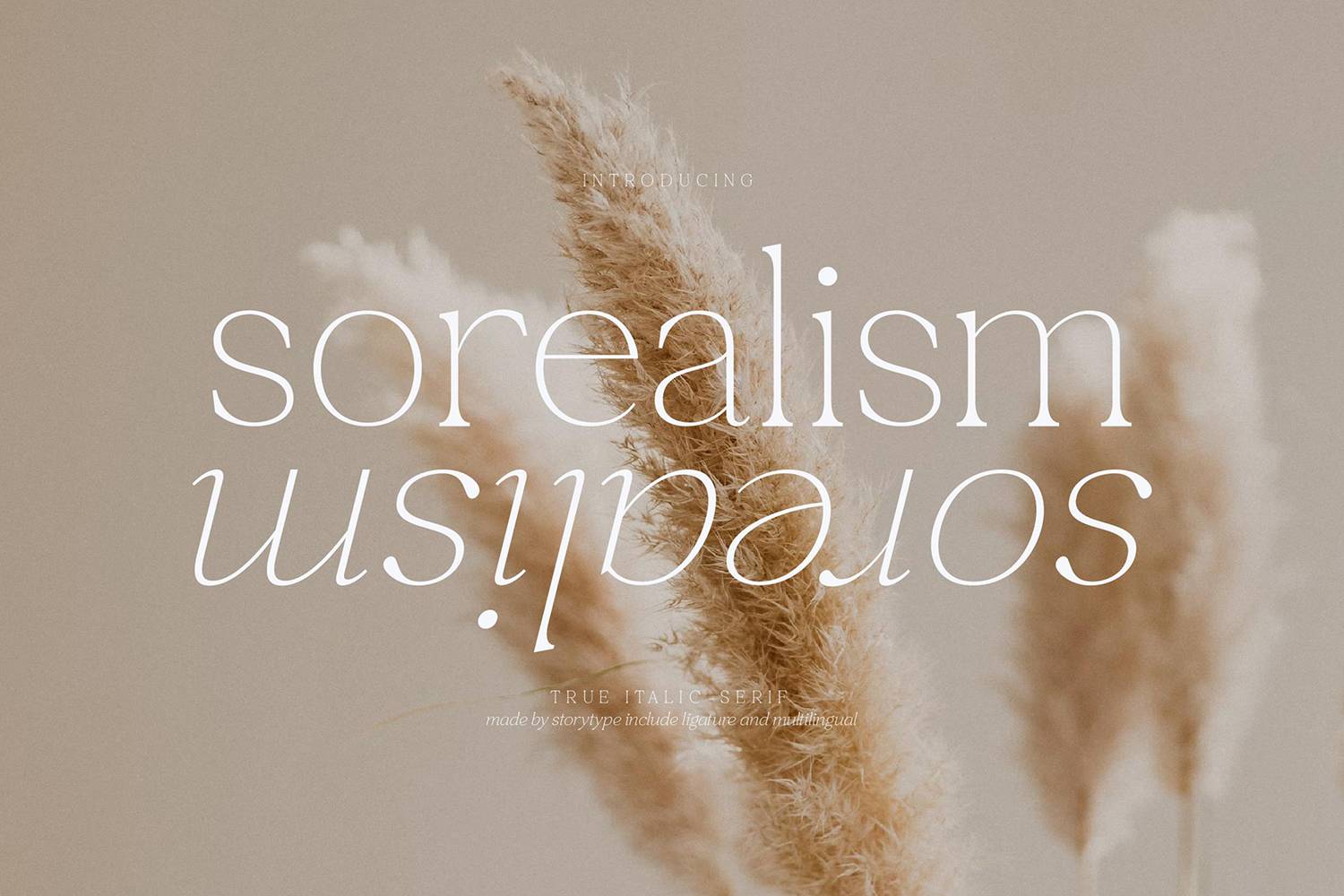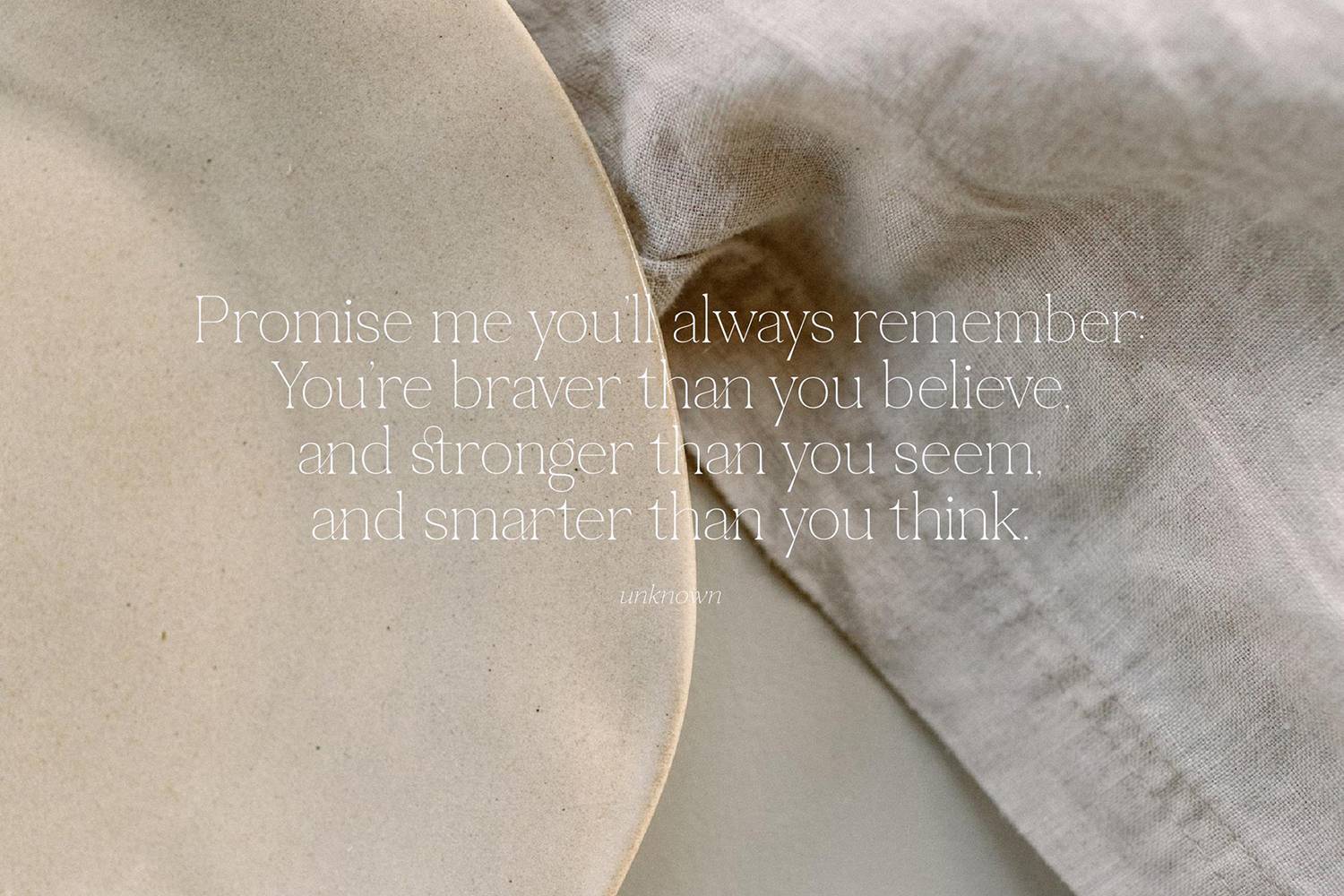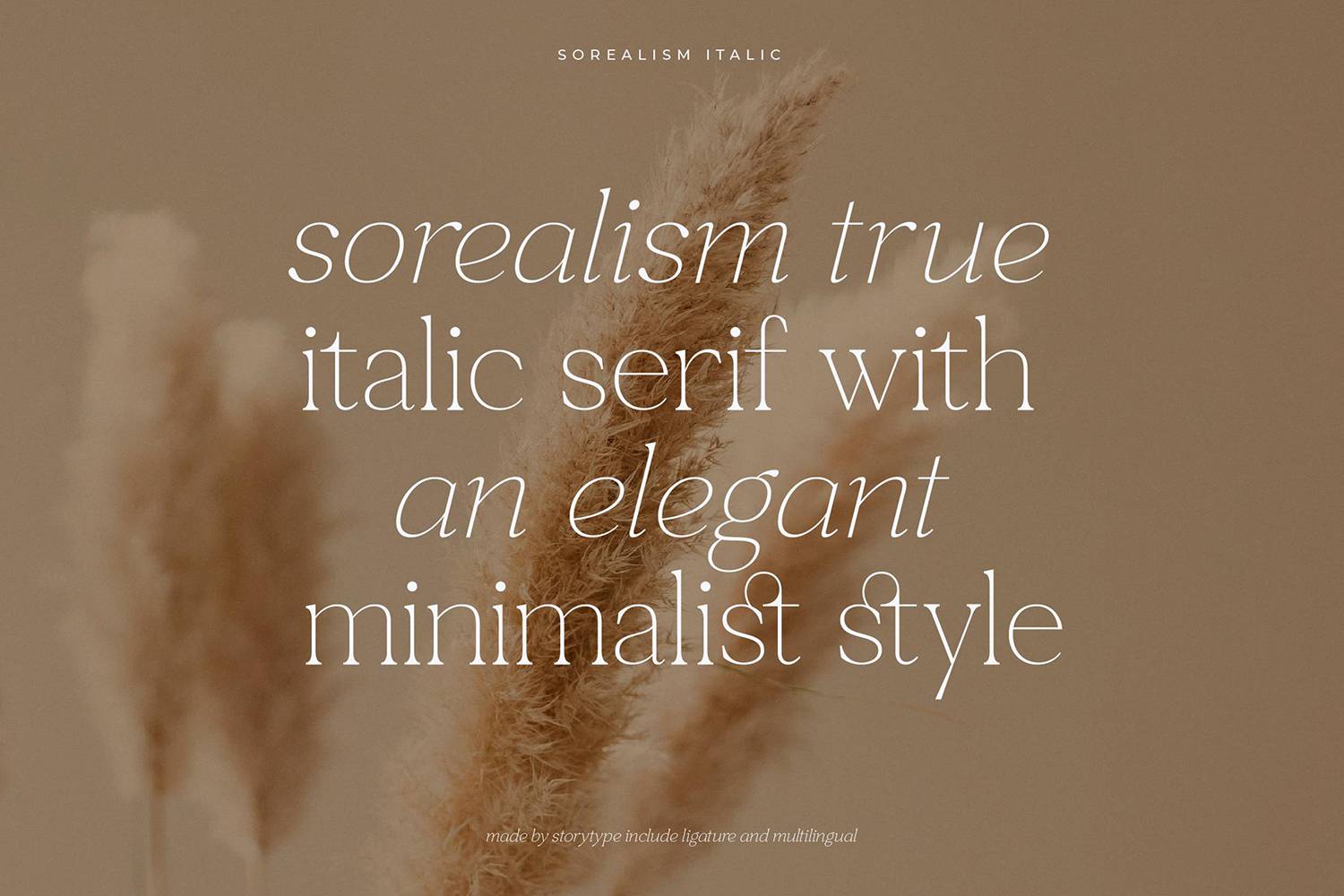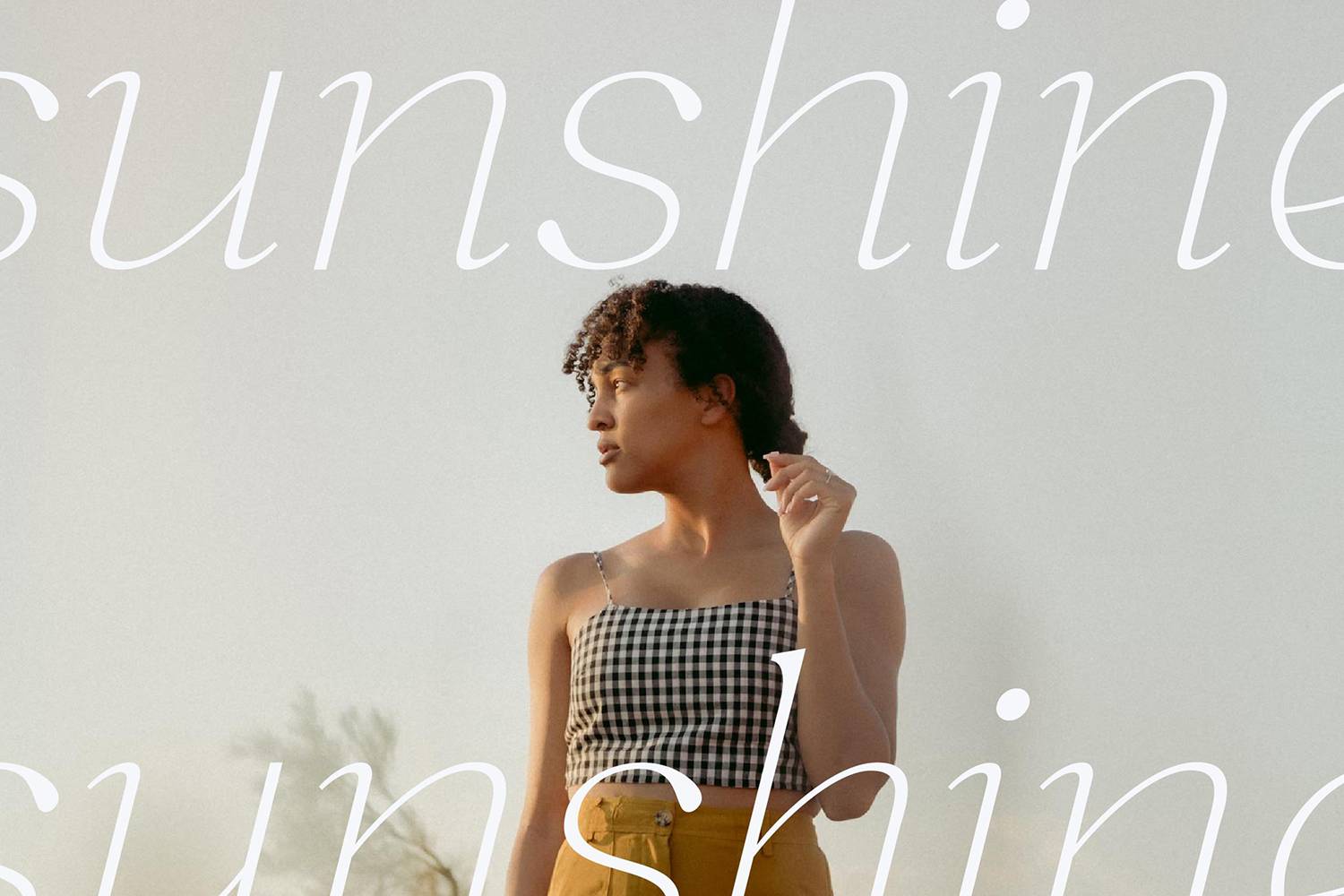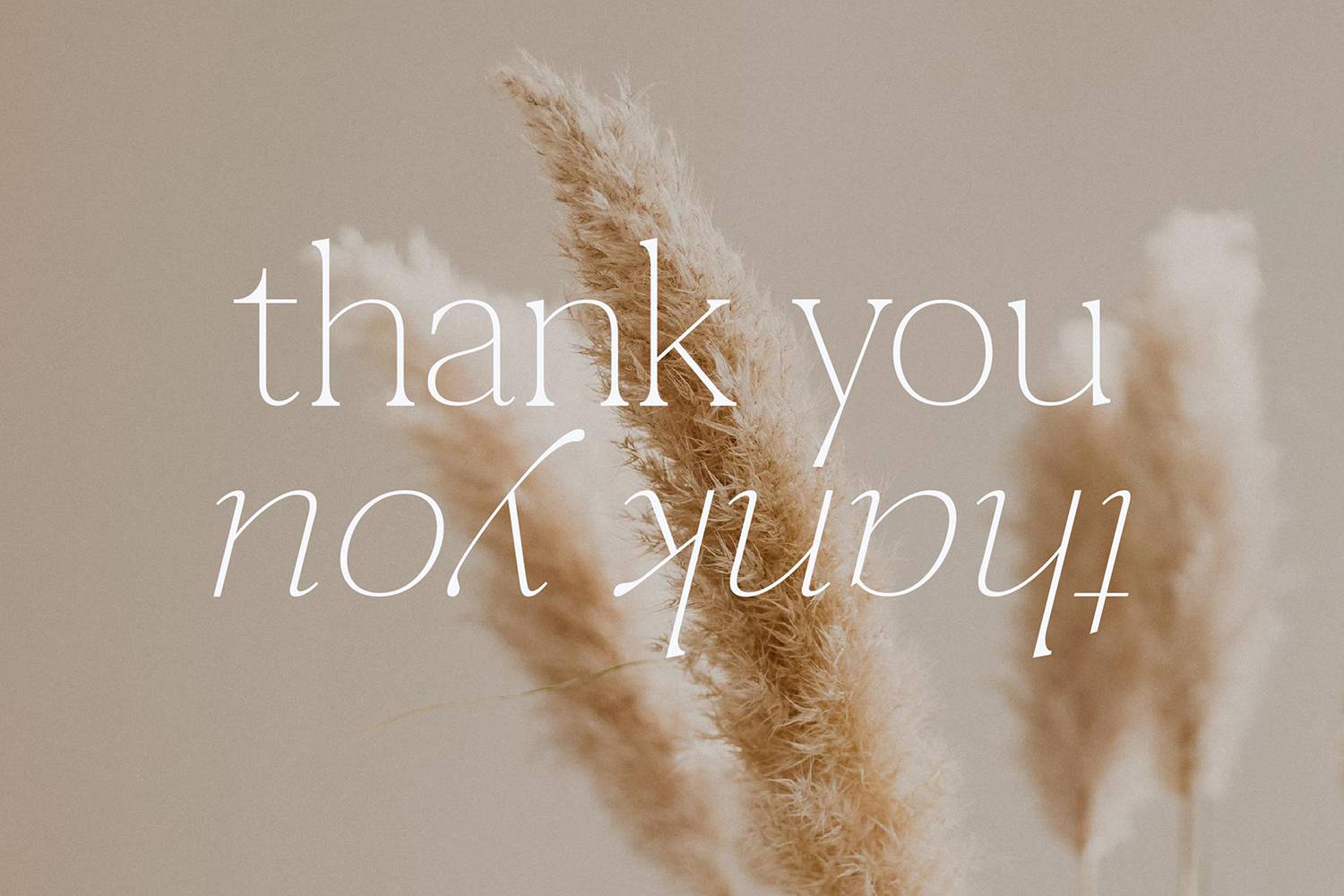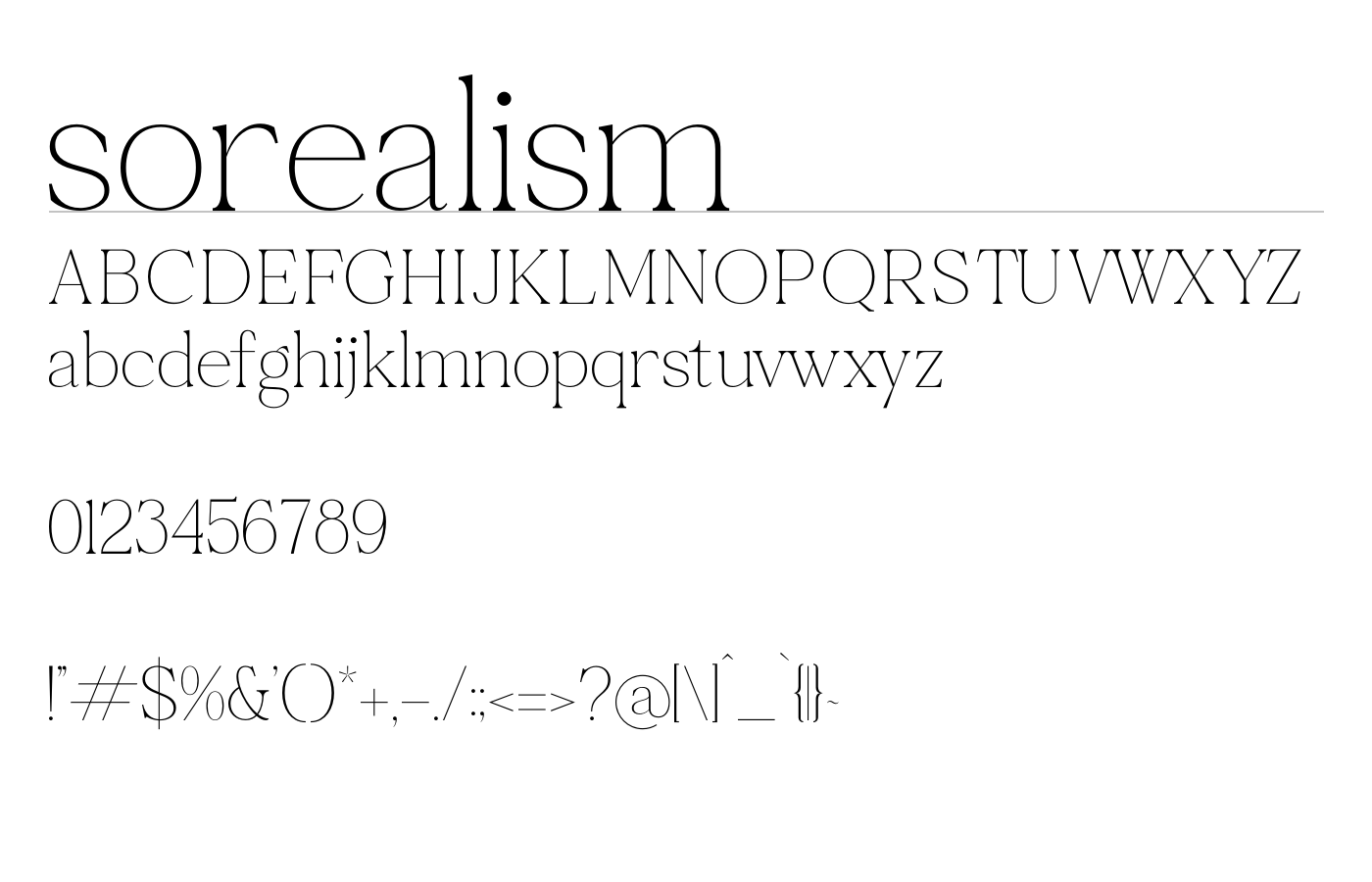
Sorealism is an elegant serif font with a modern and minimalist feel, characterized by its thin, high-contrast strokes and delicate, bracketed serifs. Its refined letterforms and tall x-height give it a sophisticated and airy appearance, making it ideal for luxury branding, editorial design, and stylish headlines where a touch of grace and precision is desired. This font works best in contexts that require a subtle yet distinctive presence, blending timeless elegance with contemporary finesse.
Sorealism Font
About Sorealism Font